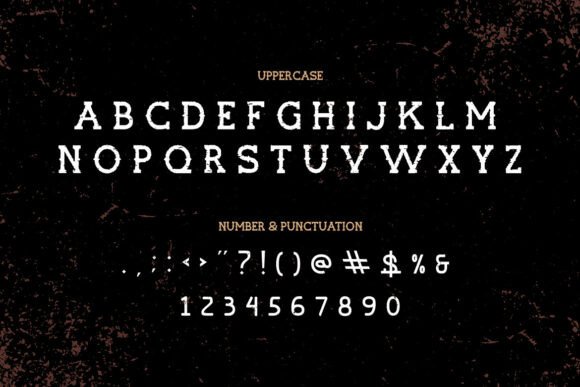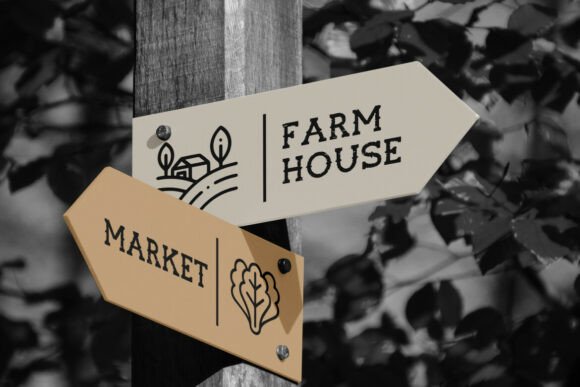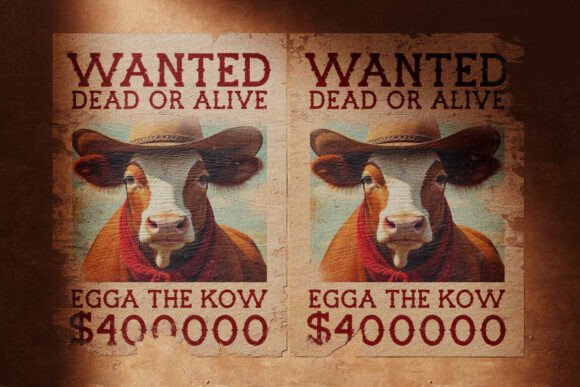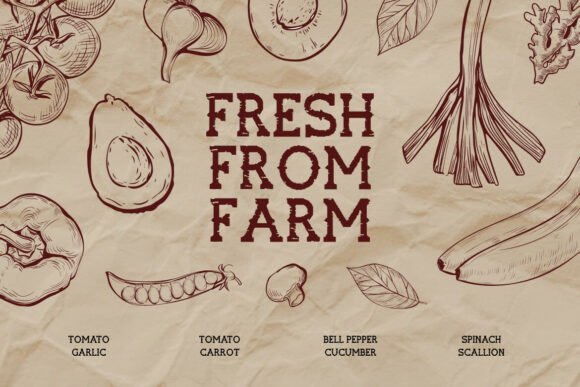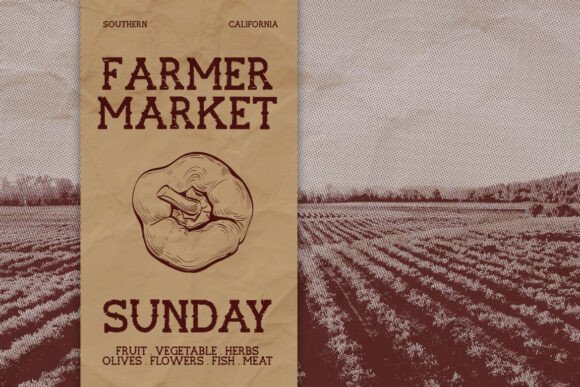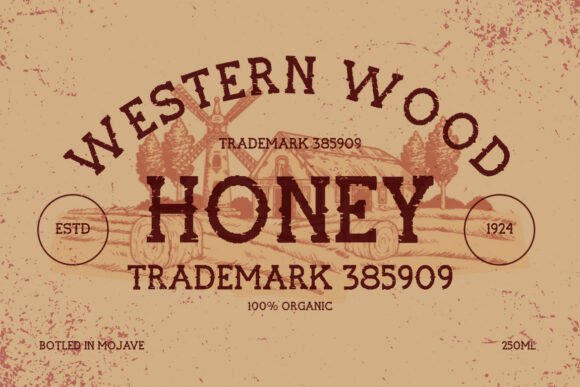
Introduction to Rockrough Font Font
Fonts play a crucial role in design, and the Rockrough Font font is a typeface that brings both character and versatility to any project. Whether you’re working on a branding project, a website, or a print design, the Rockrough Font font offers a unique style that can elevate your work.
Rockrough is a bold slab serif font with a rugged, distressed style that evokes the charm of vintage Americana.
Featuring strong slab serifs and weathered textures, this font family is ideal for farm-style branding, western posters, rustic signage, and old-fashioned packaging Its condensed form and variable weight options offer flexibility for impactful headlines, market labels, and handcrafted logos.
The Rockrough Font font is more than just a typeface – it’s a design tool that helps you communicate your message with style and clarity. Its unique character set and versatile design make it suitable for a wide range of applications, from elegant invitations to bold headlines.
With its carefully crafted letterforms and balanced proportions, the Rockrough Font font ensures readability and visual appeal across all mediums.
The Rockrough Font font stands out with its unique design, exceptional readability, and versatility across various design applications.